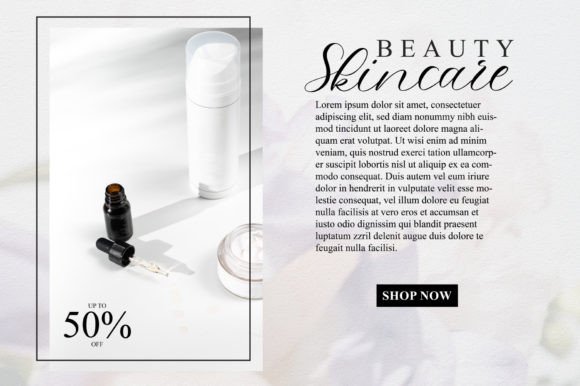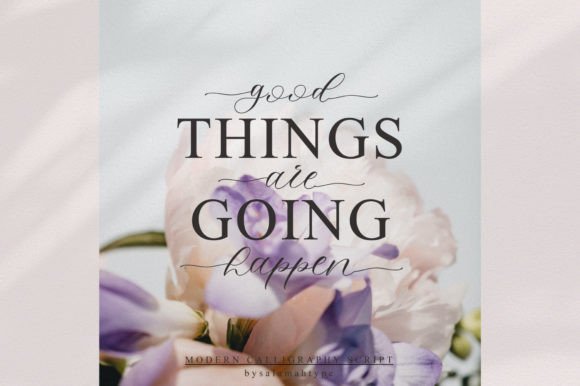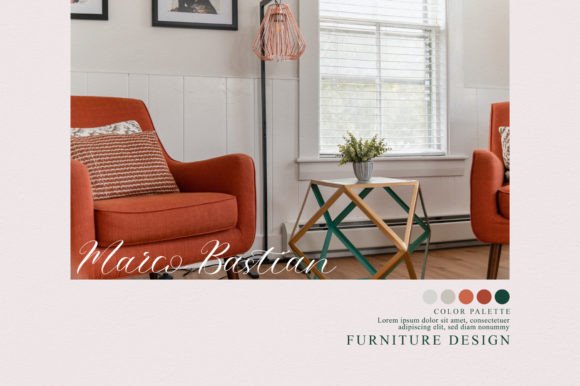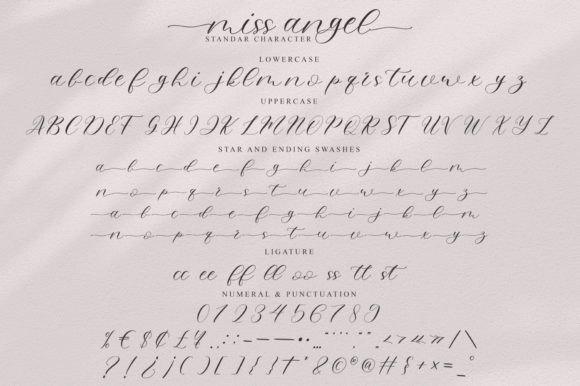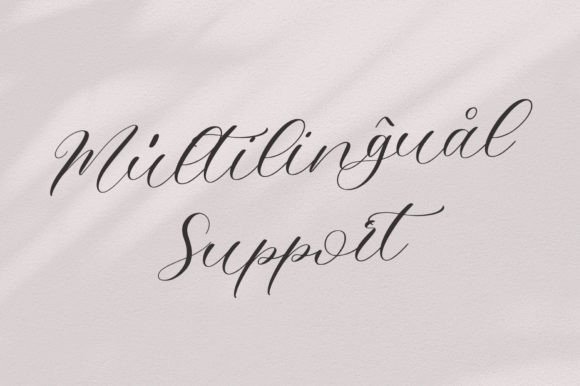
Introduction to Miss Angel Font Font
Fonts play a crucial role in design, and the Miss Angel Font font is a typeface that brings both character and versatility to any project. Whether you’re working on a branding project, a website, or a print design, the Miss Angel Font font offers a unique style that can elevate your work.
Miss Angel is a modern and beautiful handwritten script font.
This typeface is perfect for branding projects, logos, wedding invitation design, product packaging, product design, labels, social media, advertisement, and more This font is PUA encoded which means you can access all glyphs and swashes with ease.
Key Features of Miss Angel Font Font
Why Choose Miss Angel Font Font?
The Miss Angel Font font is more than just a typeface – it’s a design tool that helps you communicate your message with style and clarity. Its unique character set and versatile design make it suitable for a wide range of applications, from elegant invitations to bold headlines.
With its carefully crafted letterforms and balanced proportions, the Miss Angel Font font ensures readability and visual appeal across all mediums.
What makes Miss Angel Font font special?
The Miss Angel Font font stands out with its unique design, exceptional readability, and versatility across various design applications.